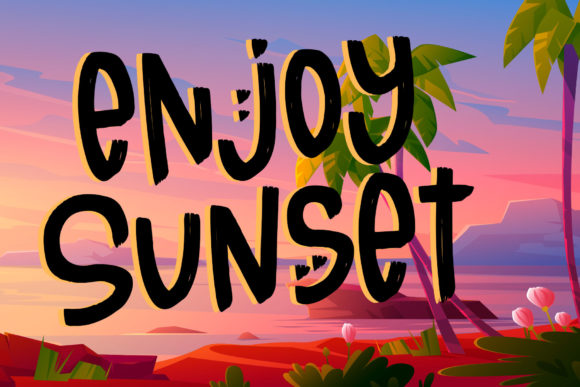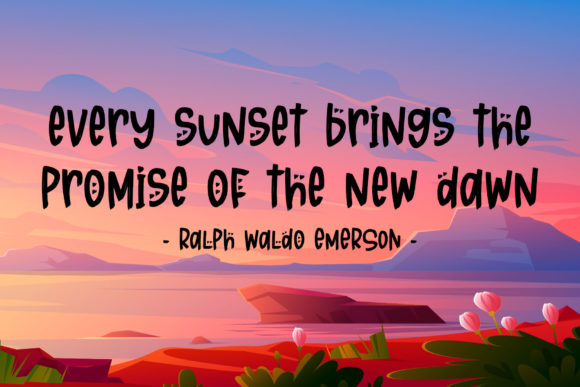
Sunset Story Font
db-ku.com - Script & Handwritten -- Sunset Story is a quirky brush font. Get inspired by it’s unique look and create stunning summer crafting projects!